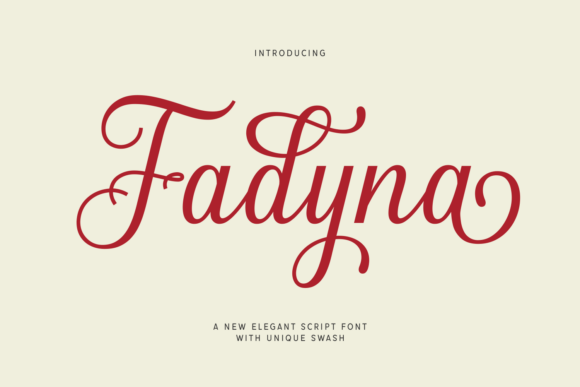
Fadyna Font: Elevate Your Brand with Timeless Elegance
In the world of typography, few fonts manage to convey the essence of elegance and sophistication as effectively as Fadyna. This exquisite script font is designed to bring a touch of classic refinement to any project, making it an ideal choice for premium branding, wedding stationery, fashion headlines, and formal invitations. With its beautifully stylized swashes, graceful curves, high-contrast strokes, and flowing terminals, Fadyna embodies the perfect blend of traditional calligraphy and modern flair.
The Characteristics of Fadyna Font
Fadyna’s design is characterized by its high-contrast strokes, which give the font its distinctive elegance. The contrast between thick and thin strokes adds depth and dimension to the letters, making them stand out in any context. The flowing terminals and beautifully stylized swashes further enhance the font’s sophisticated feel, adding a touch of fluidity and movement to the text.
One of the key features that set Fadyna apart is its classic calligraphic structure. The font’s letters are designed to evoke the feeling of traditional calligraphy, with each stroke carefully crafted to convey a sense of refinement and luxury. At the same time, Fadyna also incorporates a modern touch, making it versatile enough to be used in a wide range of projects.
Uses of Fadyna Font
Fadyna’s versatility and elegance make it suitable for a variety of applications. Here are some of the ways you can use this beautiful font:
- Premium Branding: Fadyna’s sophisticated design makes it an excellent choice for luxury brands looking to establish a refined and elegant image.
- Wedding Stationery: The font’s romantic and elegant feel makes it perfect for wedding invitations, save-the-date cards, and other wedding-related stationery.
- Fashion Headlines: Fadyna’s high-fashion appeal makes it ideal for use in fashion magazines, blogs, and advertisements.
- Formal Invitations: Whether it’s a formal gala, a corporate event, or a black-tie affair, Fadyna is the perfect choice for creating elegant and sophisticated invitations.
Why Choose Fadyna Font?
With so many fonts available, why should you choose Fadyna for your next project? Here are a few compelling reasons:
- Timeless Sophistication: Fadyna’s classic design ensures that it will remain relevant and stylish for years to come, making it a great investment for any brand or individual.
- Versatility: The font’s versatility means you can use it in a wide range of projects, from luxury branding to wedding stationery.
- Elegance: Fadyna’s elegant design makes it perfect for projects that demand a refined and sophisticated aesthetic.
- Expressive: Despite its elegance, Fadyna is also an expressive font, allowing you to convey your message with style and flair.
How to Use Fadyna Font Effectively
To get the most out of Fadyna, here are a few tips on how to use it effectively:
- Pair it with a Sans Serif Font: For body text, pair Fadyna with a clean sans serif font to create a striking contrast between headings and text.
- Use it for Headlines: Fadyna is designed to make a statement, so use it for headlines and titles where you want to grab attention.
- Experiment with Swashes: Fadyna’s swashes are designed to add a touch of elegance to your text. Experiment with different swash styles to find the one that works best for your project.
- Keep it Simple: While Fadyna is an elegant font, it’s essential to keep your design simple and uncluttered to let the font shine.
Fadyna font is a beautiful and elegant script font that brings a touch of timeless sophistication to any project. With its classic calligraphic structure, modern touch, and stunning swashes, Fadyna is the perfect choice for premium branding, wedding stationery, fashion headlines, and formal invitations. Whether you’re looking to create a refined and elegant image or simply want to add a touch of luxury to your project, Fadyna is an excellent choice.
- What is Fadyna font?
- Fadyna is an elegant script font with timeless sophistication and beautifully stylized swashes.
- What is Fadyna font used for?
- Fadyna is ideal for premium branding, wedding stationery, fashion headlines, and formal invitations.